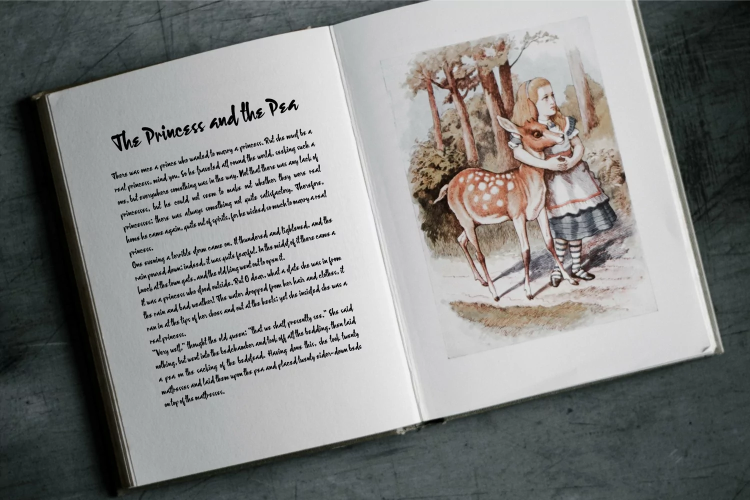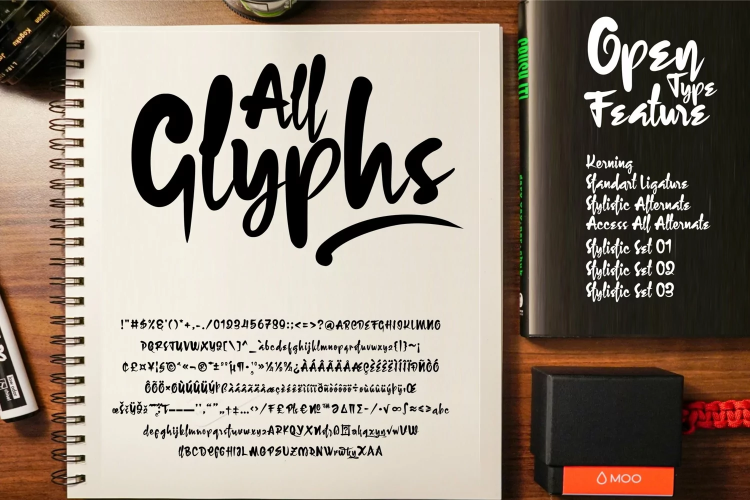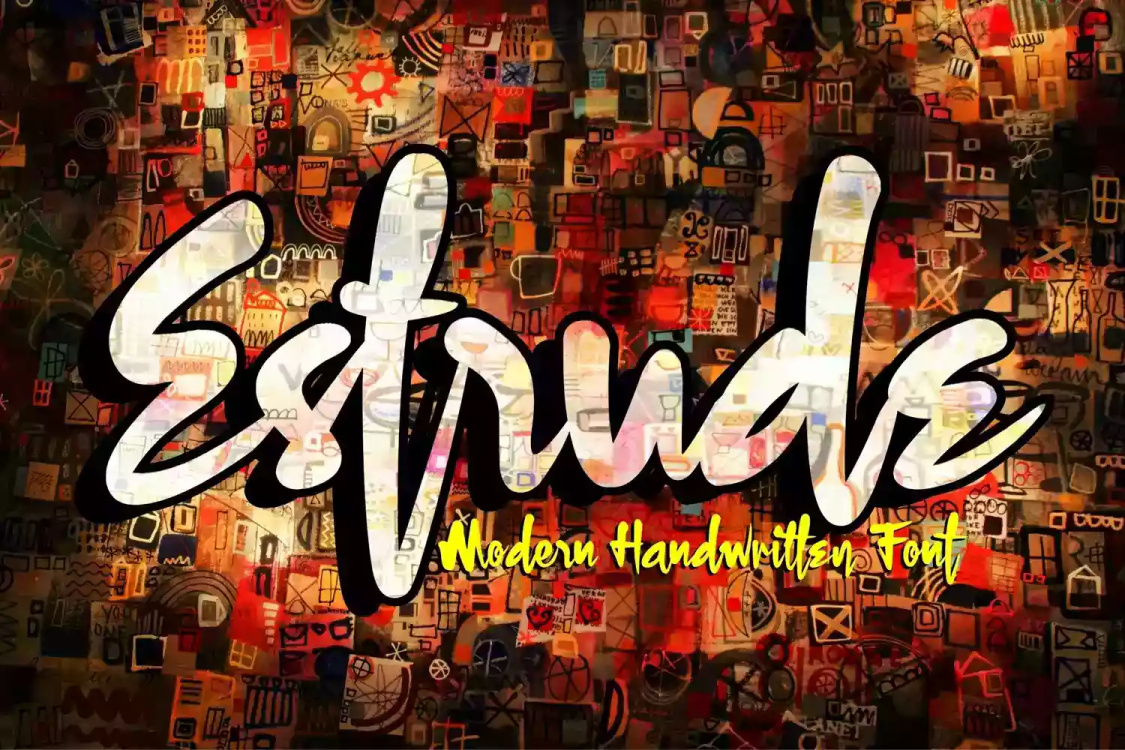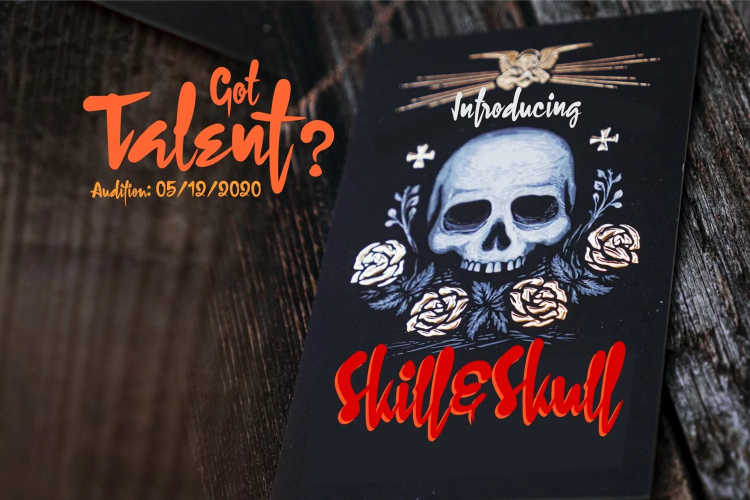
Estrude Font
Estrude is a modern handwritten font and pays attention to the anatomy of some text to create a flexible yet elegant form. This font is available in regular and italic f…
Estrude is a modern handwritten font and pays attention to the anatomy of some text to create a flexible yet elegant form. This font is available in regular and italic forms with open type features to enrich the choice of style when used. This font is perfect for informal uses while maintaining the beauty of writing.
Where Estrude Font works best
Estrude Font brings a personal, handwritten warmth to invitations, menus and place cards.
Craft brands — coffee, cosmetics, bakery — use scripts like Estrude Font for signature-style logos and labels.
Pair Estrude Font with a plain sans for quotes, stories and Pinterest pins that feel handmade.
What is Estrude Font good for?
Estrude Font is a Script And Handwritten typeface tagged Elegant, Handwritten, Modern, Script. It works well for headlines, logos, posters, social media graphics and branding projects that need a distinctive script and handwritten look.